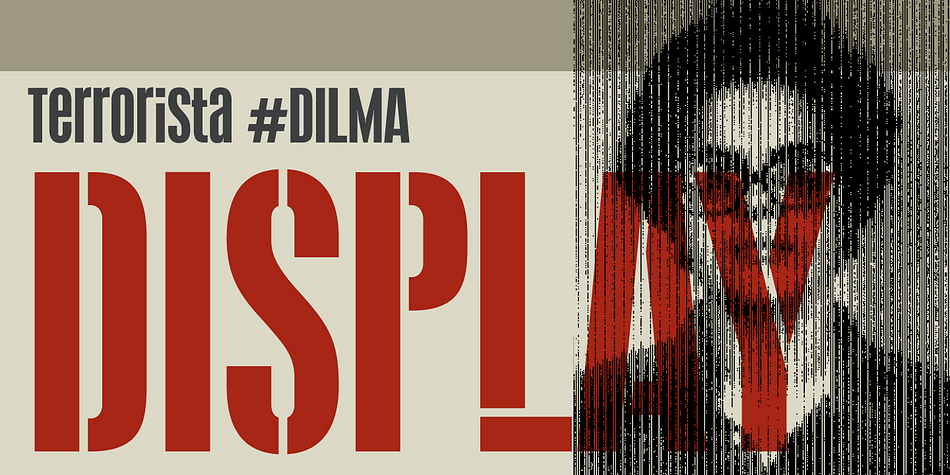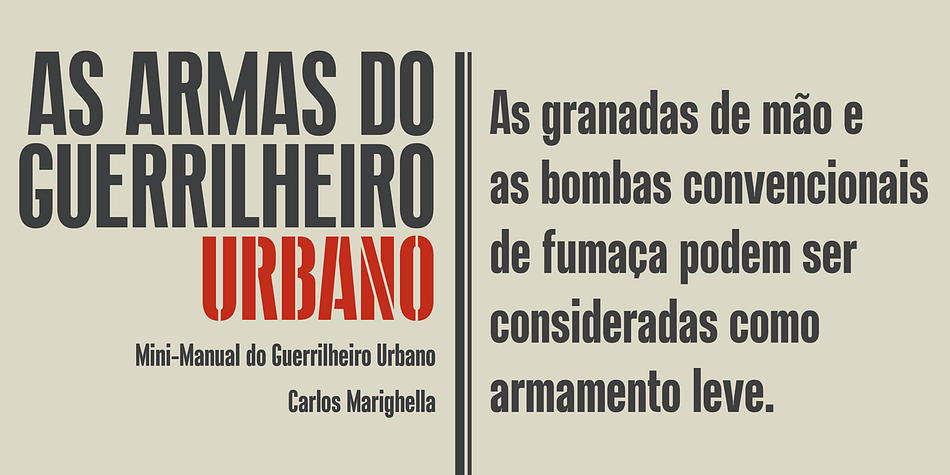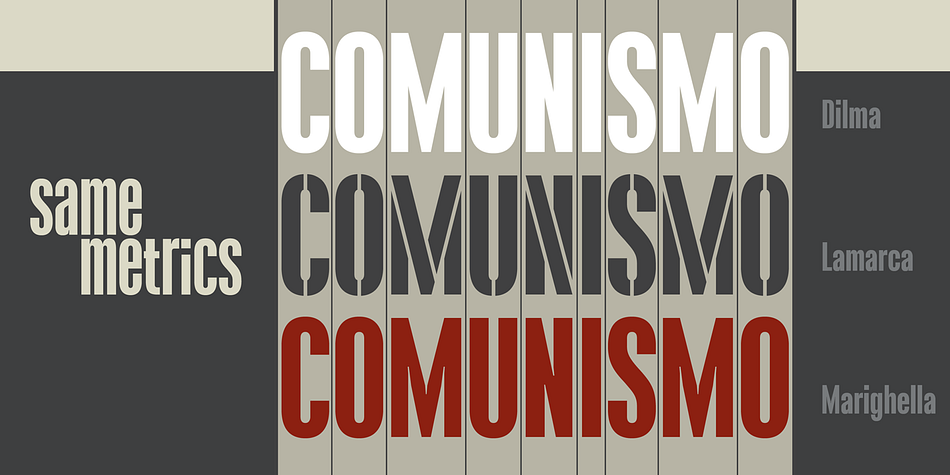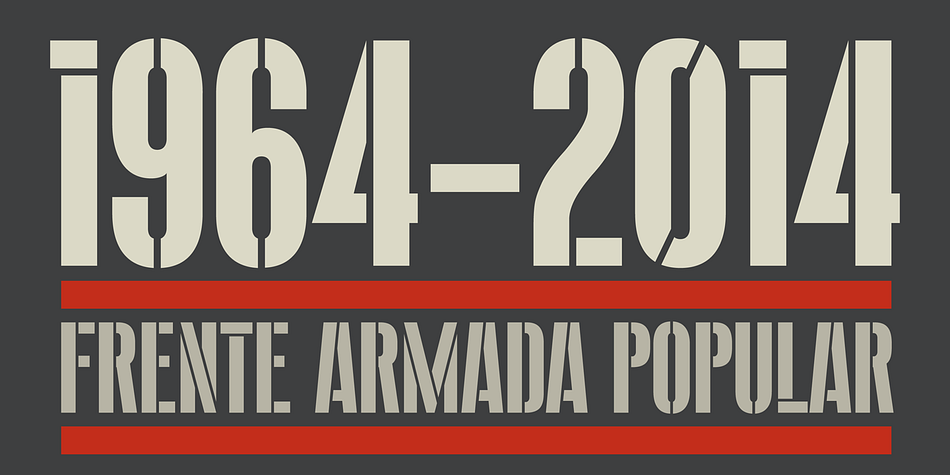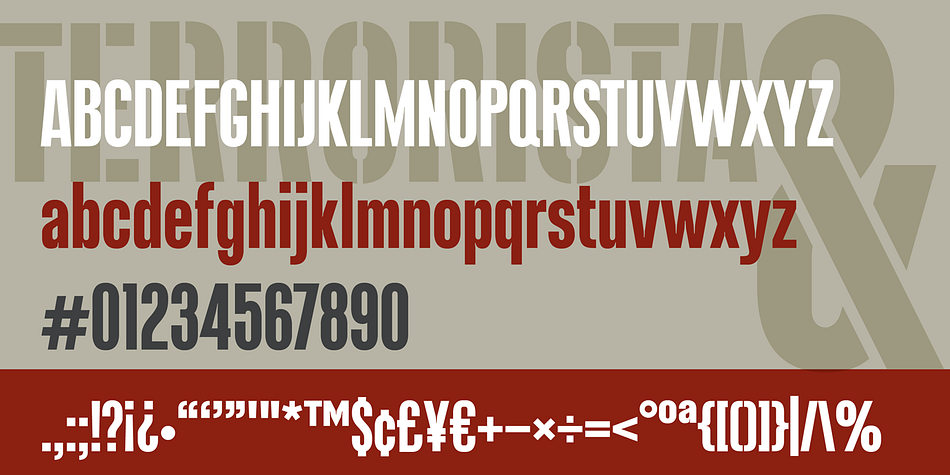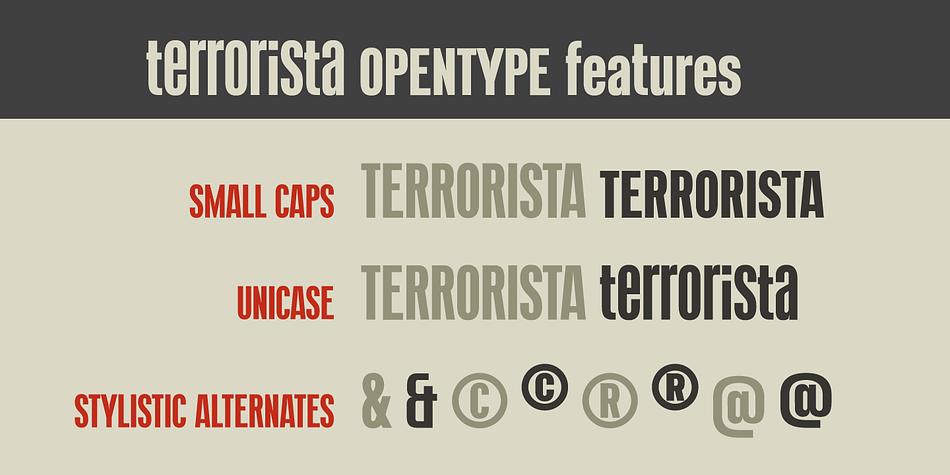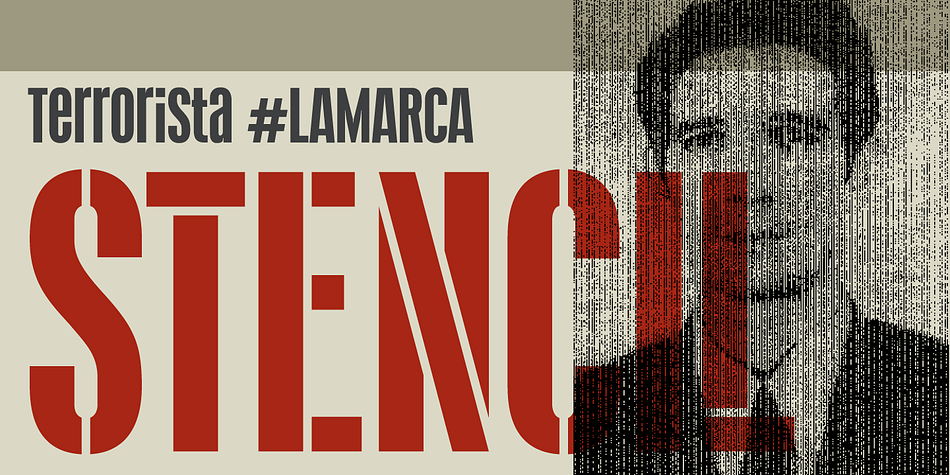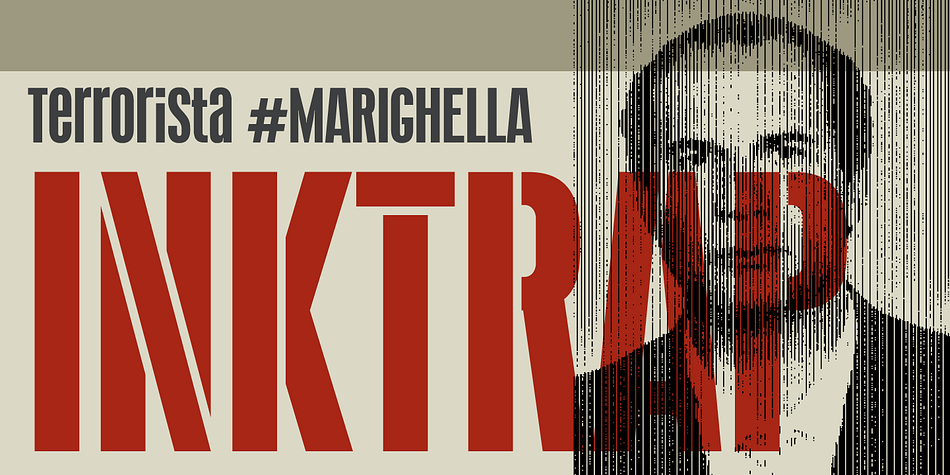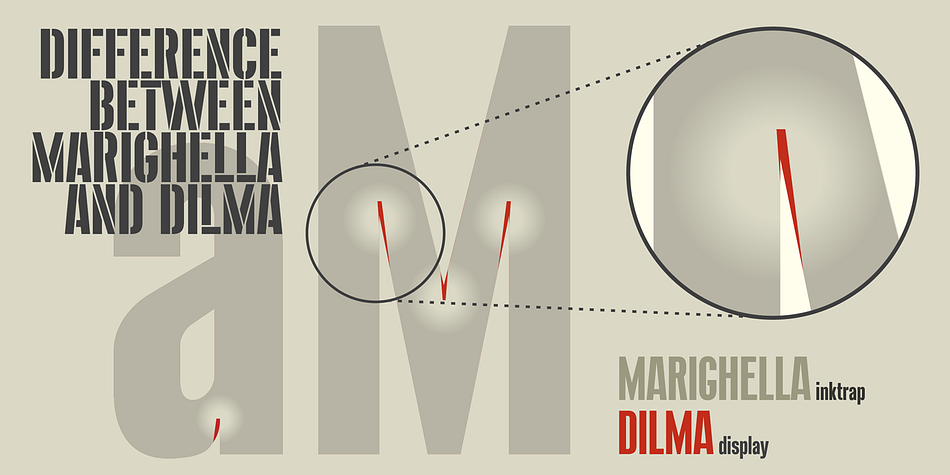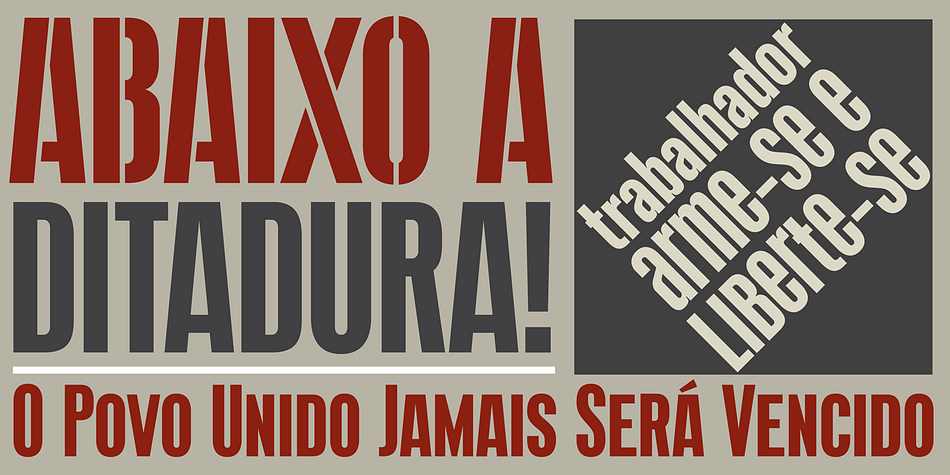
Designed by Bernardo Faria and Tony de Marco, Terrorista is a stencil and display sans font family. This typeface has three styles and was published by Just In Type.
Terrorista is a homage to everyone who fought against the Millitary Regime in Brazil from 1964 to 1985.
The Terrorista Marighella features generous ink traps and works perfectly at small sizes. Terrorista Dilma has the same design as the Marighella, but without inktraps, made for display. The last typeface from the package is Terrorista Lamarca, a stencil version.
All three weights have the same metrics, making it easier to use them together.